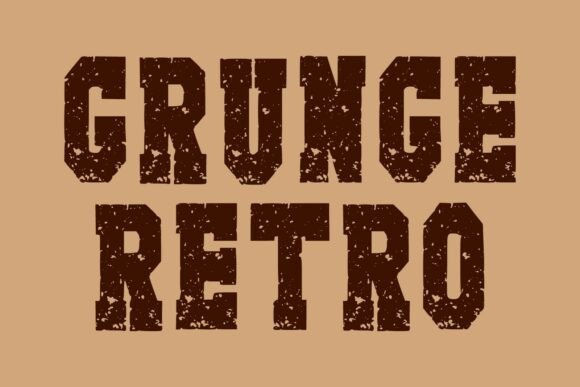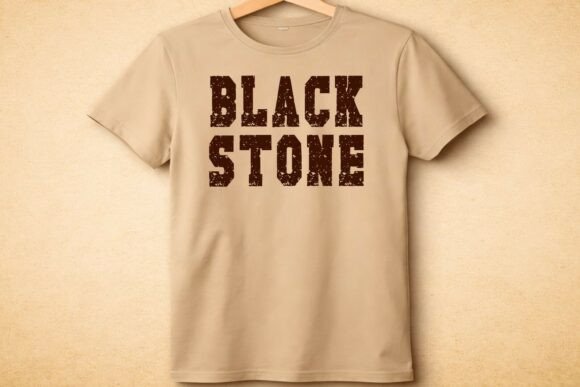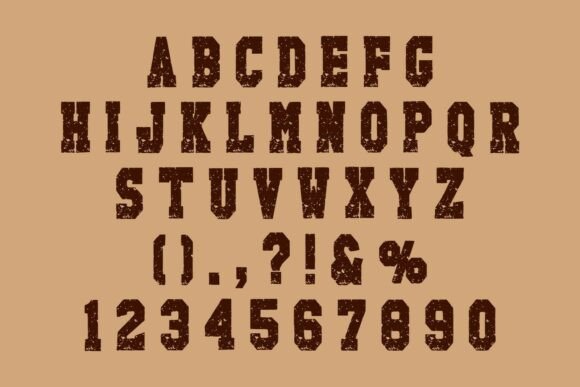
Introduction to Rough Vintage Font
Rough Vintage Distressed Display Font is a bold and powerful typeface featuring a rugged distressed texture that gives it an authentic vintage look.
Inspired by classic retro signage and worn typography, this font is perfect for creating eye-catching headlines, posters, branding, logos, packaging, labels, and t-shirt designs Its rough texture and strong letterforms make it ideal for vintage, grunge, rustic, and retro design projects that need a bold and character-filled typography style.